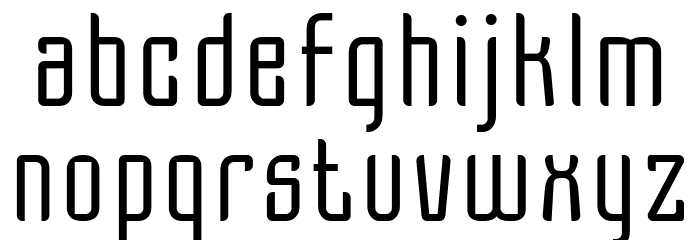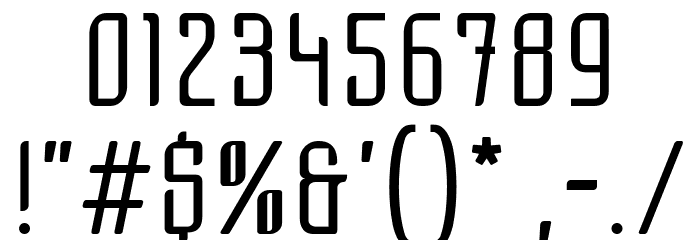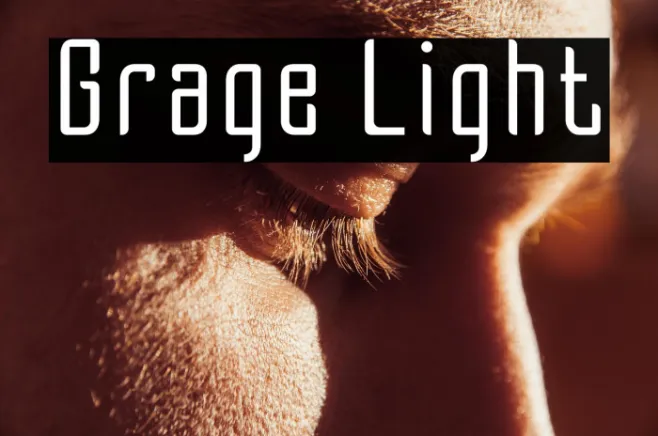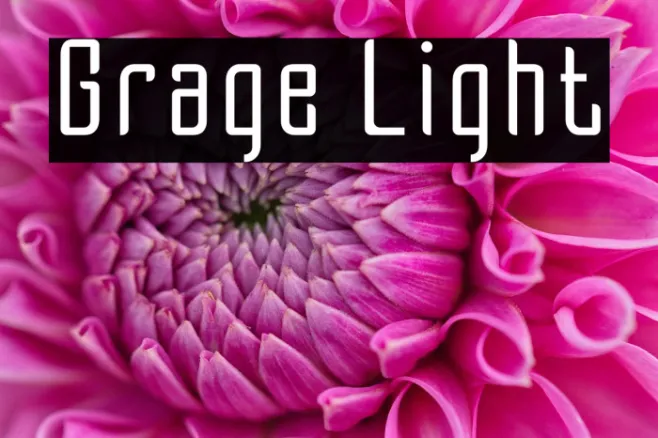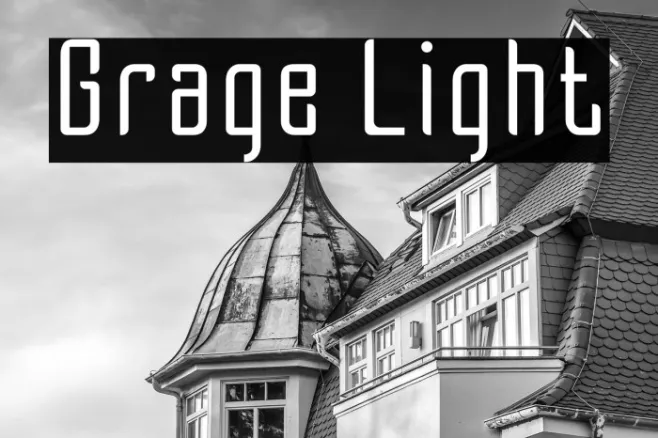
Grage Light Font
This font features a modern, geometric design with rounded edges and a clean, streamlined appearance. The characters are tall and narrow, giving it a condensed look that maintains readability. The uniform stroke width throughout the characters provides a consistent and harmonious feel. Its minimalistic style is enhanced by the absence of serifs, making it suitable for contemporary design projects. The font includes a full set of uppercase and lowercase letters, numbers, and a variety of special characters, ensuring versatility for different applications.
A modern, geometric sans-serif font with rounded edges and a condensed style.
- Proposed Projects: Ideal for branding, advertising, digital interfaces, and modern print designs.
- Use Case: Headlines, Logos, Digital Interfaces